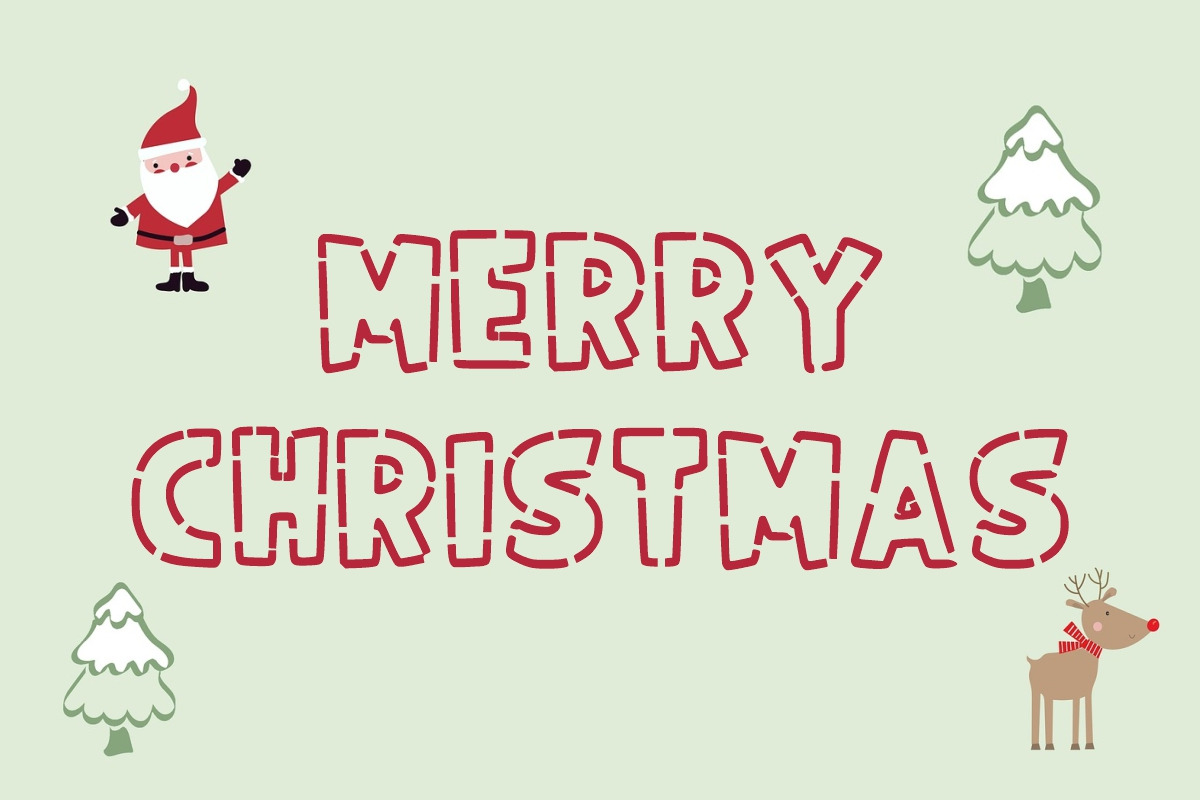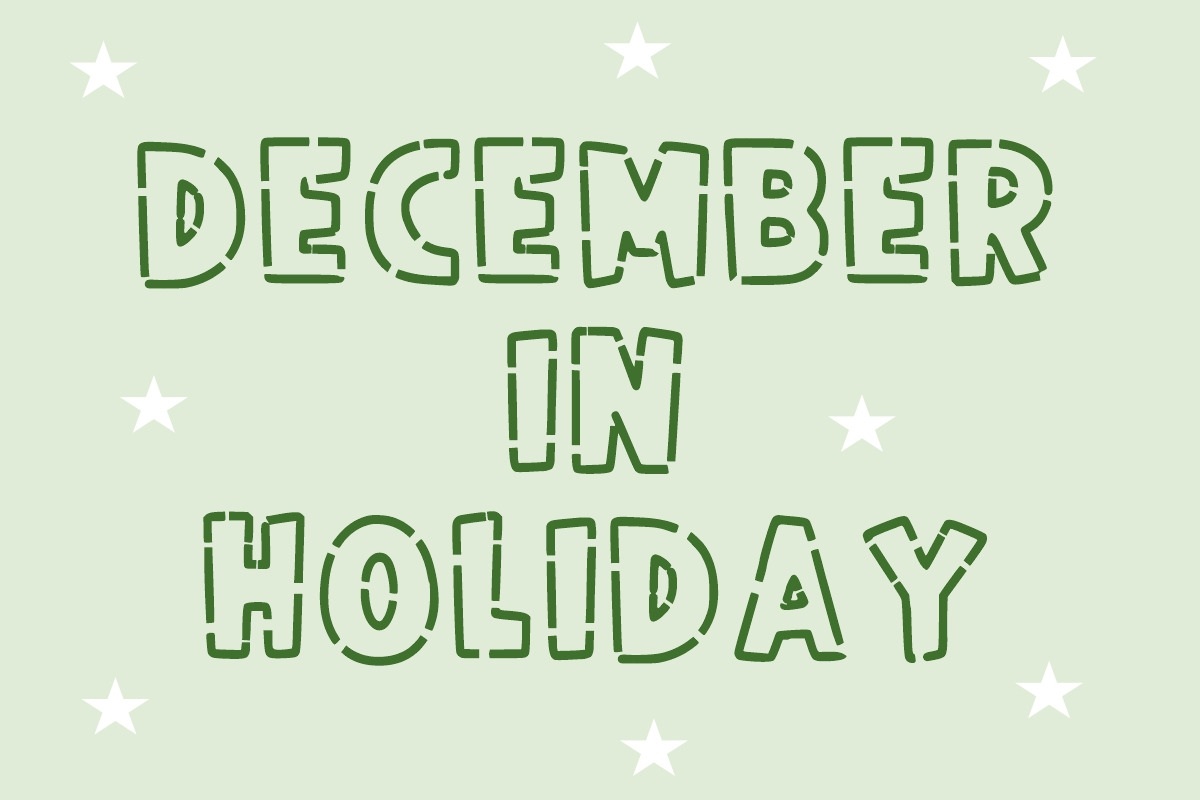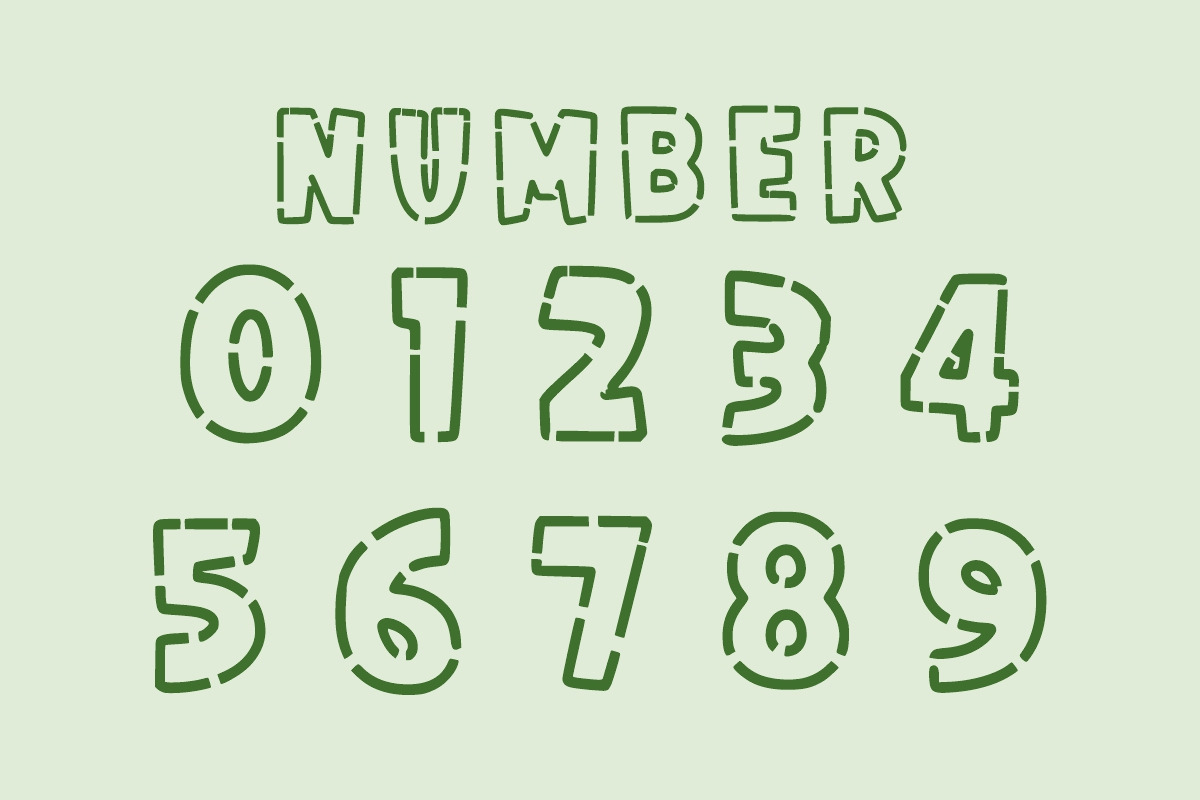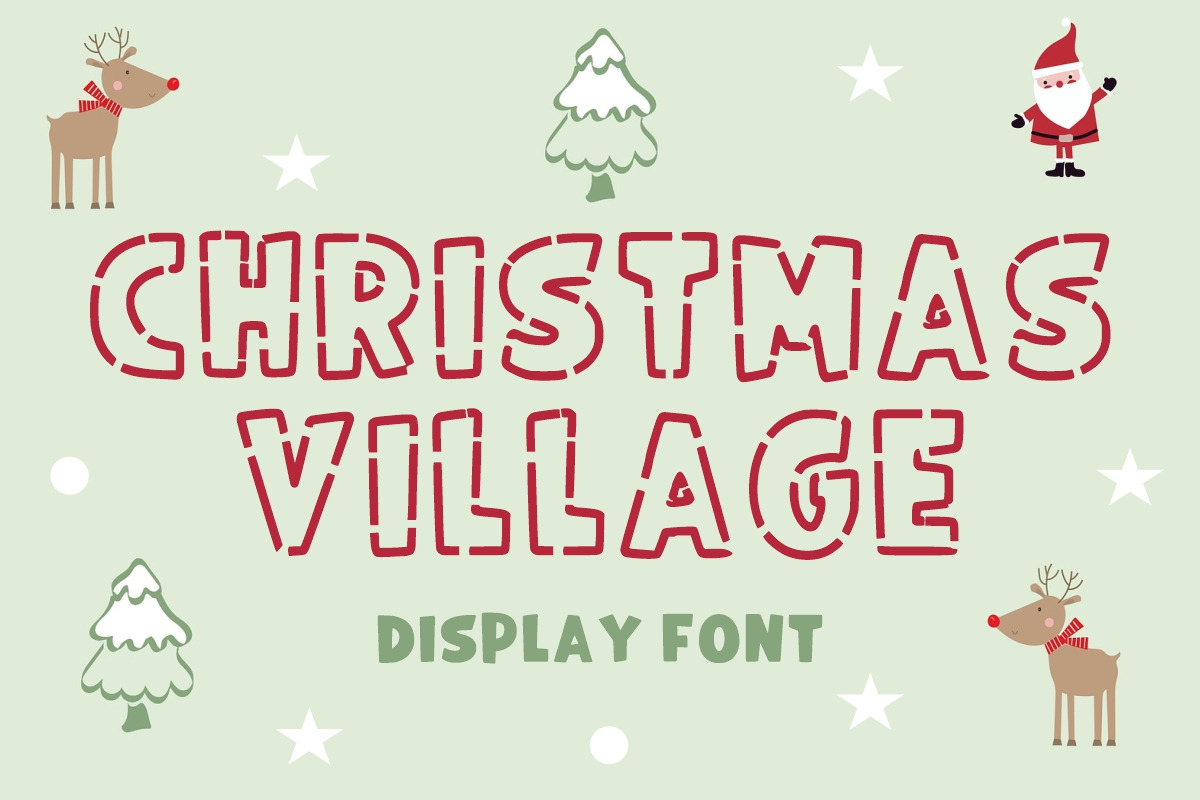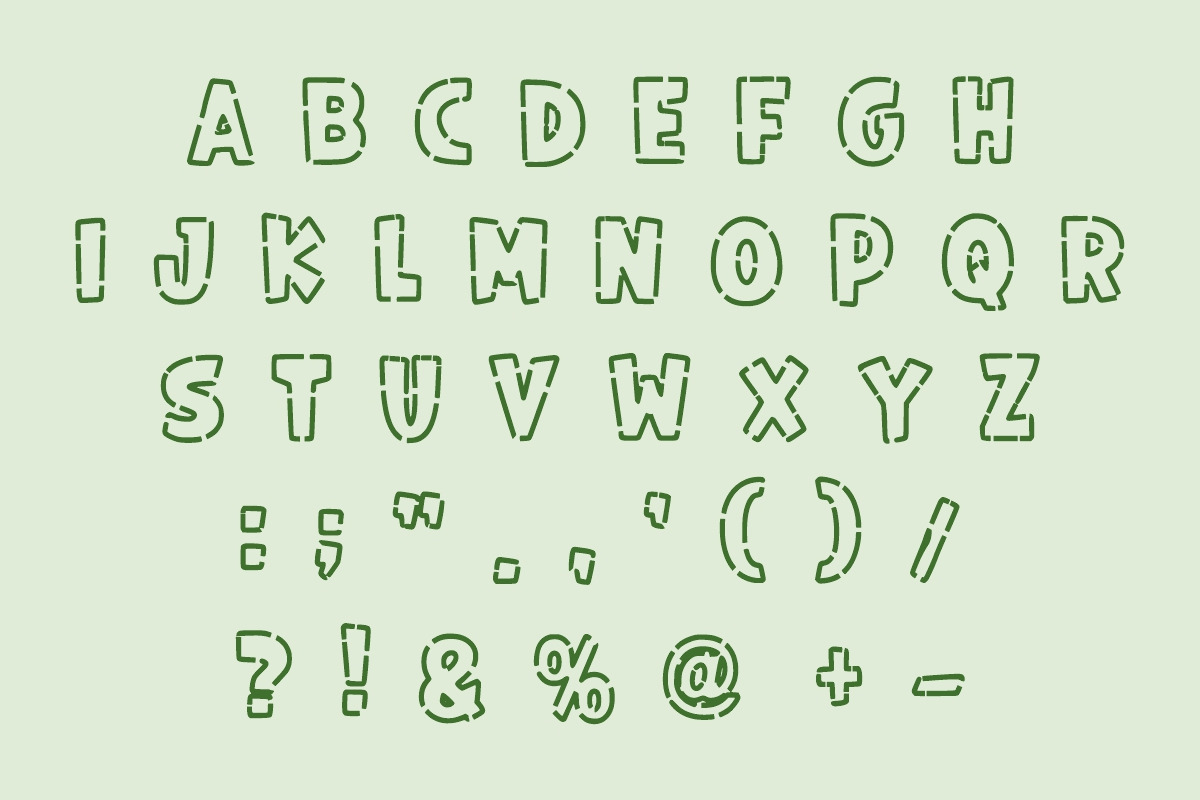
Christmas Village font
Christmas Village is a cheerful, festive display font characterized by its charming, stencil-cut aesthetic, perfect for adding a homespun touch to holiday crafts.
This typeface features chunky, all-caps letterforms where the solid strokes are intentionally broken by small gaps, mimicking the look of traditional stencil cutting or stitching. The rounded edges keep the overall feel playful, friendly, and inherently cozy.
This decorative font is an excellent tool for designers and crafters creating Christmas cards, holiday signs, gift tags, personalized stockings, seasonal apparel prints, and DIY holiday projects. Its unique stencil style makes it easy to use for cutting machines (like Cricut or Silhouette) and also lends itself perfectly to appliqué or embroidery designs.
Christmas Village instantly conveys a warm, traditional, and crafty holiday cheer that is accessible and fun for all ages.